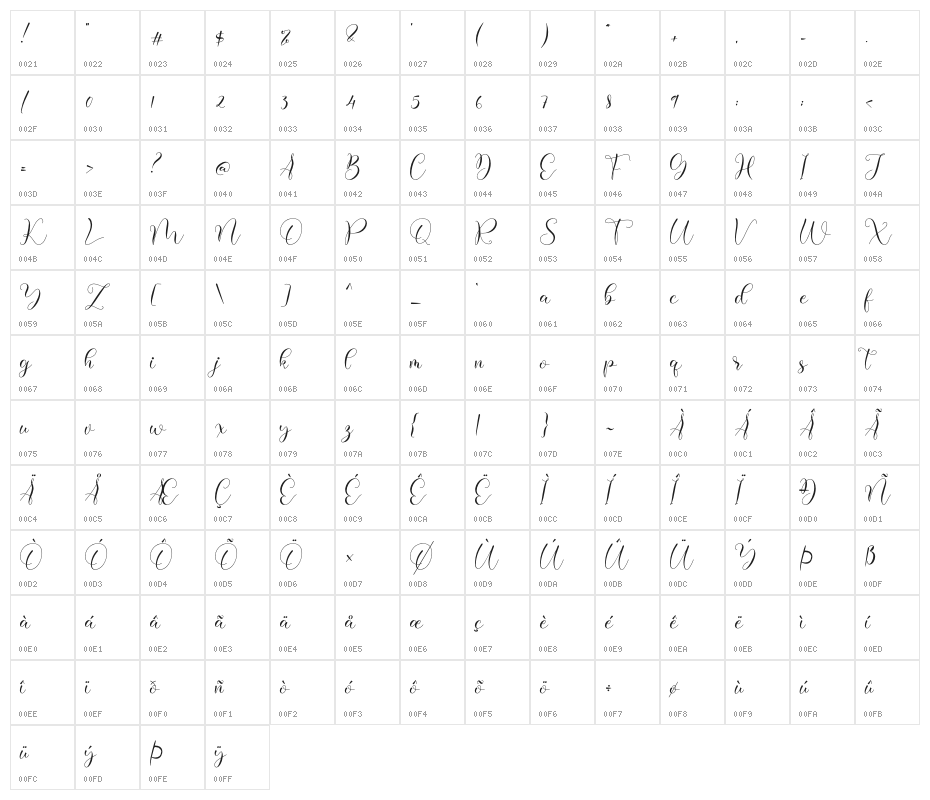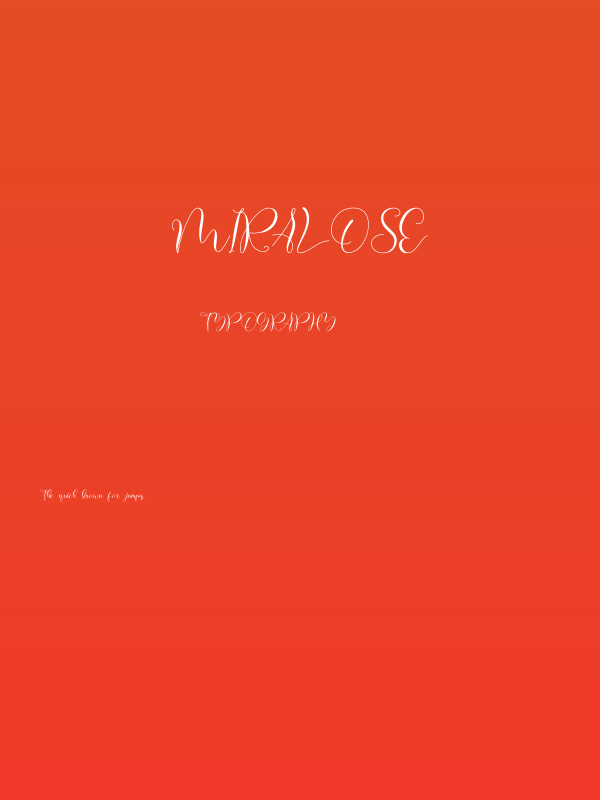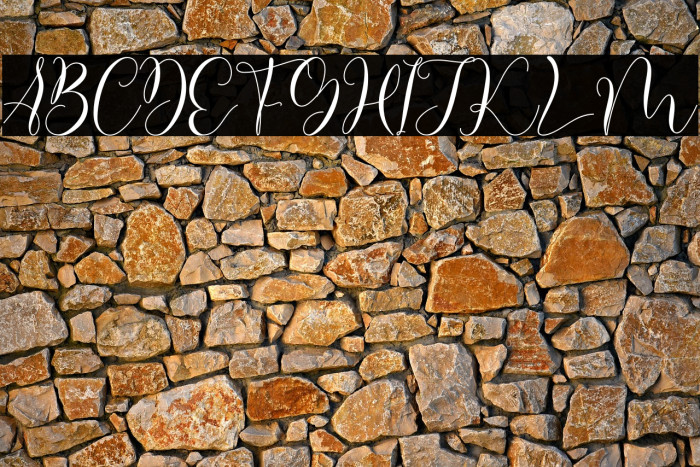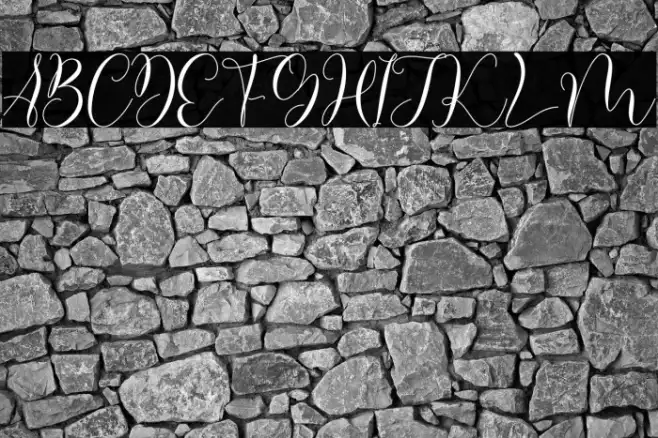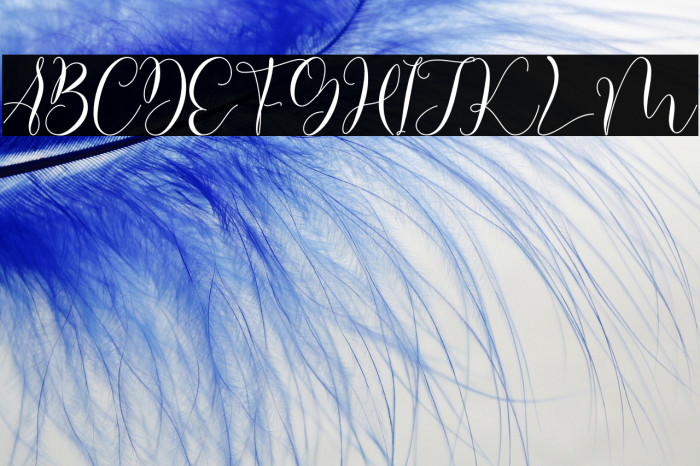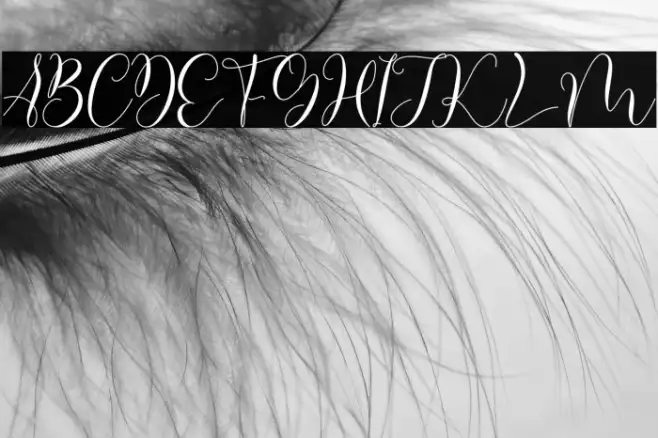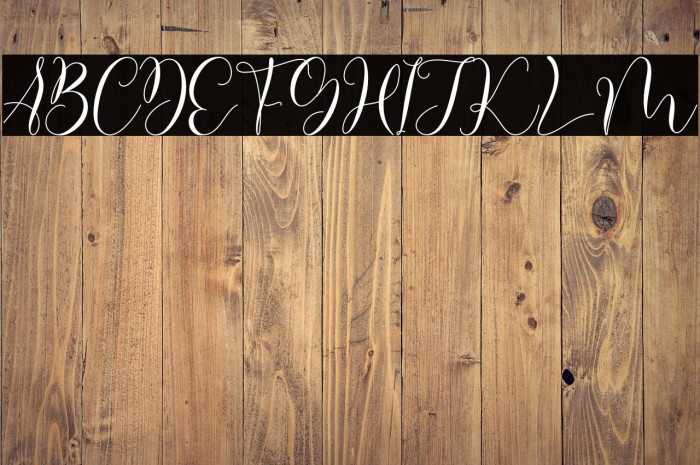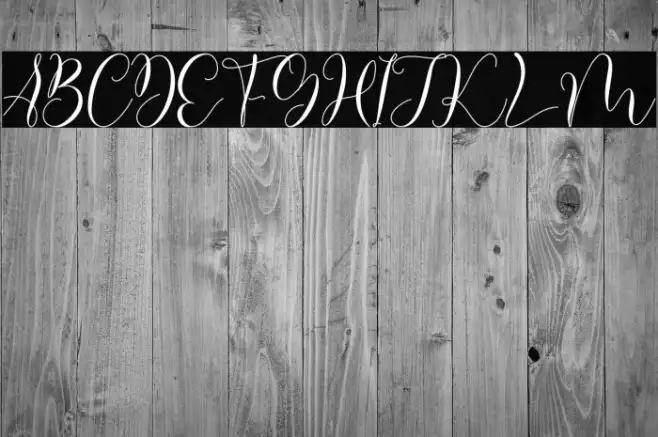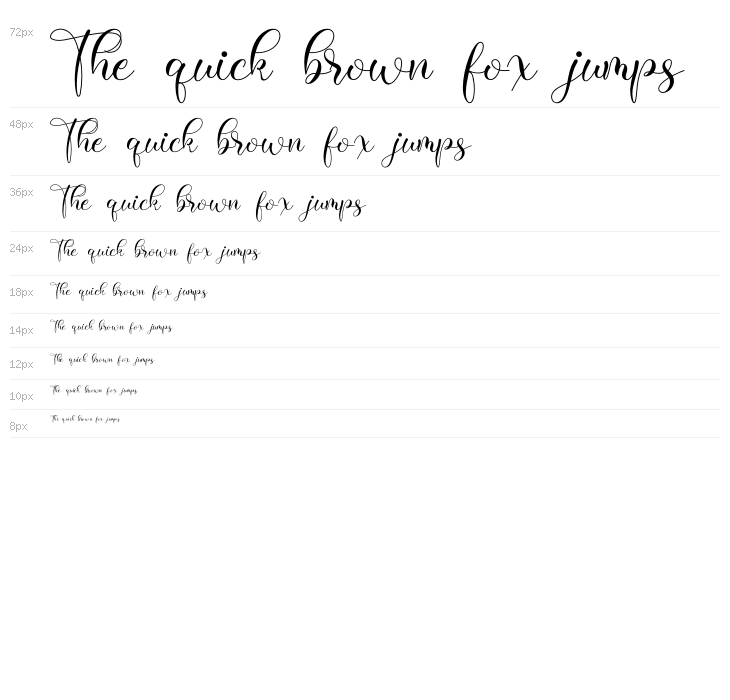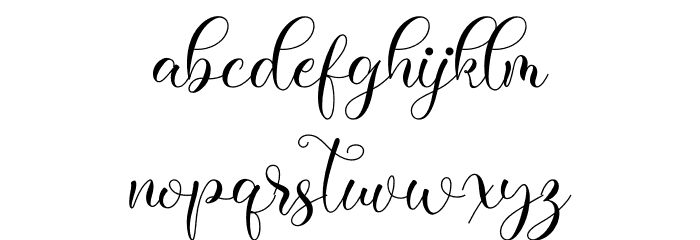
Miralose Font
Miralose Description
This elegant script font features flowing, interconnected letters with a calligraphic style. The uppercase letters are ornate with sweeping curves and flourishes, while the lowercase letters maintain a more subtle yet still decorative appearance. The numbers and special characters are designed to complement the overall aesthetic, with a consistent stroke width that adds to the font's graceful appearance. The font's style is reminiscent of traditional handwriting, making it suitable for projects that require a personal touch.